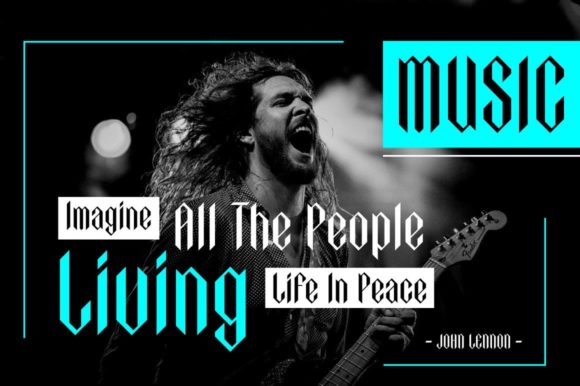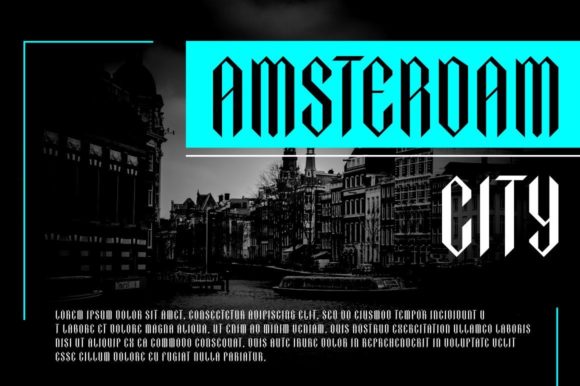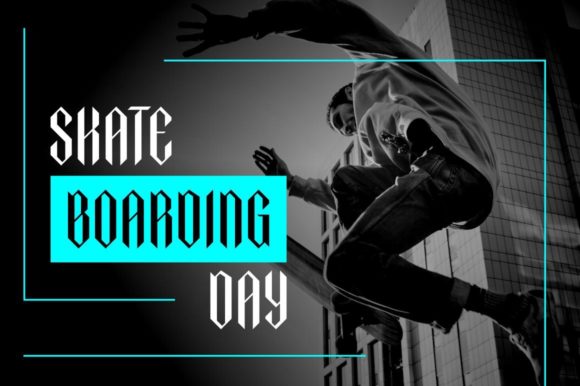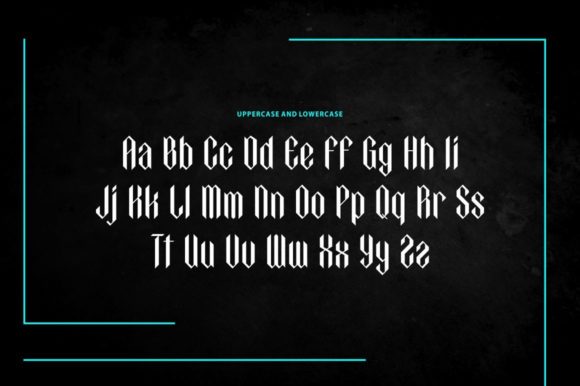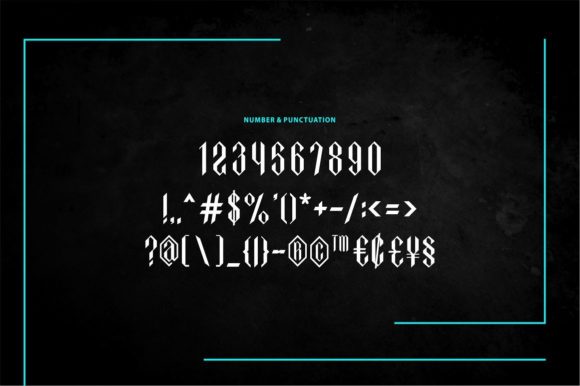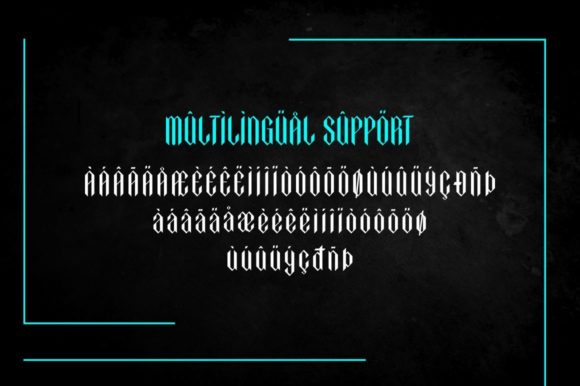
Introducing Elvante Font: The Modern Blackletter Masterpiece
Are you a designer or crafter looking for a unique and elegant font to elevate your creative projects? Look no further than Elvante Font, a modern and uniquely designed blackletter font that’s taking the design world by storm. With its classy, elegant, and modern look, Elvante is the perfect choice for logos, branding, invitations, stationery, wedding designs, social media posts, and so much more!
The Story Behind Elvante Font
Elvante Font is a carefully crafted typeface that combines traditional blackletter elements with a modern twist. Its creator, a skilled typographer, aimed to design a font that would be both nostalgic and fresh, with a unique character that sets it apart from other fonts. The result is a stunning blackletter font that’s both sophisticated and eye-catching.
Key Features of Elvante Font
- Unique Design: Elvante Font boasts a distinctive design that blends traditional blackletter elements with modern flair.
- Elegant and Classy: The font’s elegant and classy look makes it perfect for high-end branding, luxury goods, and sophisticated designs.
- Modern Twist: Elvante’s modern twist sets it apart from traditional blackletter fonts, making it ideal for designers looking for something fresh and unique.
- Versatile: Elvante Font can be used for a wide range of projects, from logos and branding to invitations, stationery, and social media posts.
What Makes Elvante Font So Versatile?
Elvante Font’s versatility lies in its ability to adapt to various design styles and contexts. Its elegant and modern look makes it suitable for:
- Logos and Branding: Create a lasting impression with Elvante Font, perfect for luxury brands, fashion labels, and high-end businesses.
- Invitations and Stationery: Add a touch of sophistication to your wedding invitations, event stationery, and greeting cards.
- Wedding Designs: Elvante Font is an excellent choice for wedding designs, including wedding invitations, programs, and ceremony decor.
- Social Media Posts: Elevate your social media presence with Elvante Font, ideal for creating engaging and stylish posts.
Tips for Using Elvante Font Effectively
To get the most out of Elvante Font, consider the following tips:
- Pair with contrasting fonts: Combine Elvante Font with a clean, sans-serif font to create visual interest and hierarchy.
- Experiment with colors: Elvante Font looks stunning in bold colors, metallic finishes, and rich textures.
- Play with sizes: Use Elvante Font in various sizes to create visual emphasis and add depth to your designs.
| Font Name | Elvante Font |
| Author | Kincrev Studio |
Elvante Font is a game-changing blackletter font that’s perfect for designers and crafters looking to add a touch of elegance and sophistication to their creative projects. With its unique design, versatility, and modern twist, Elvante is sure to become a go-to font in your design arsenal. Whether you’re working on a logo, branding, invitation, or social media post, Elvante Font is the perfect choice to elevate your design and make a lasting impression.